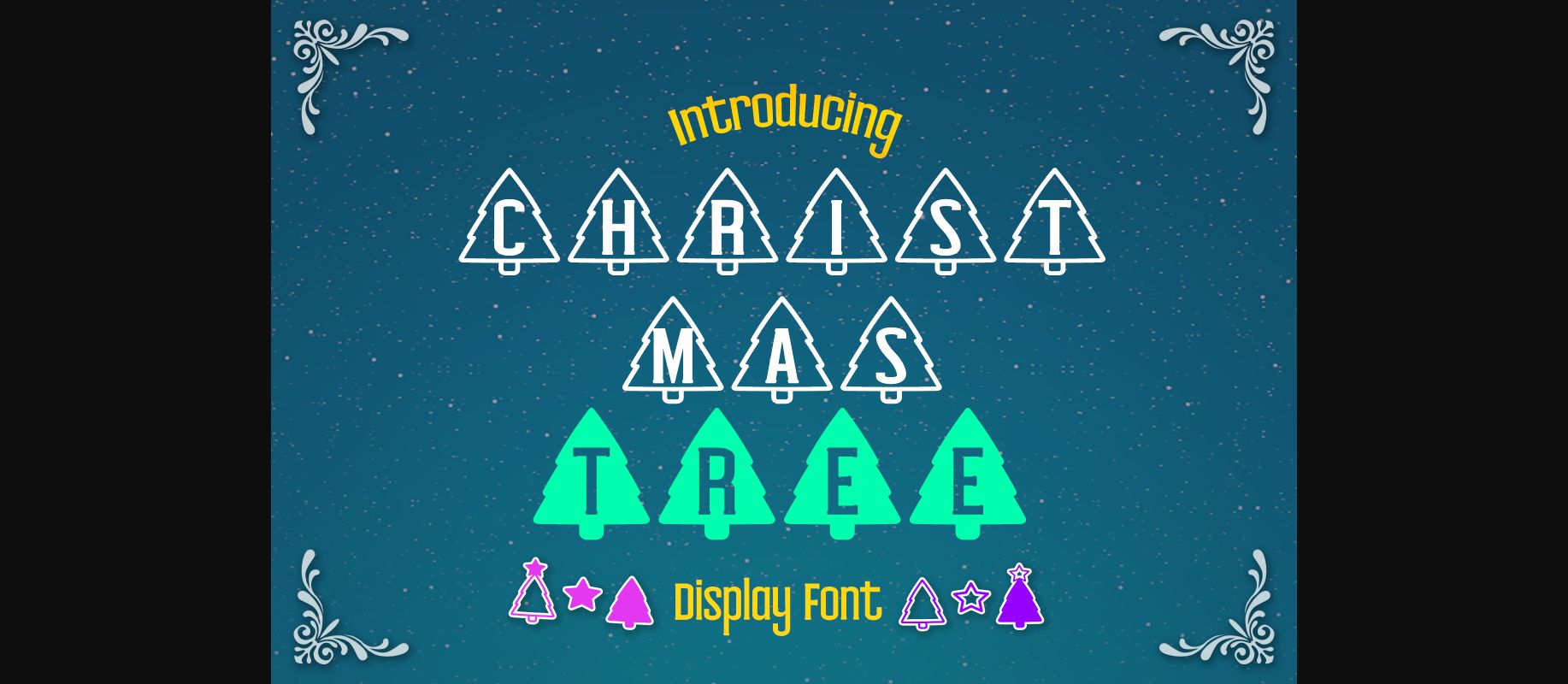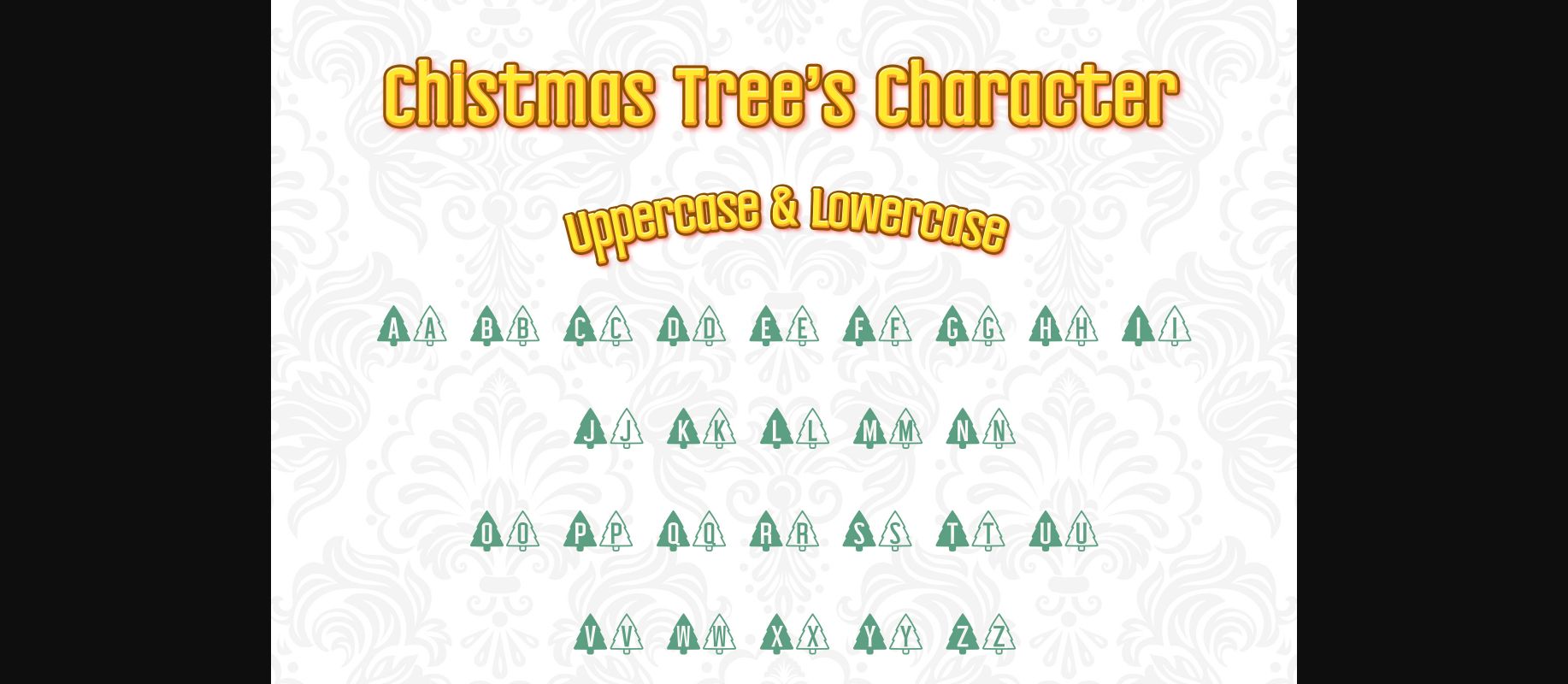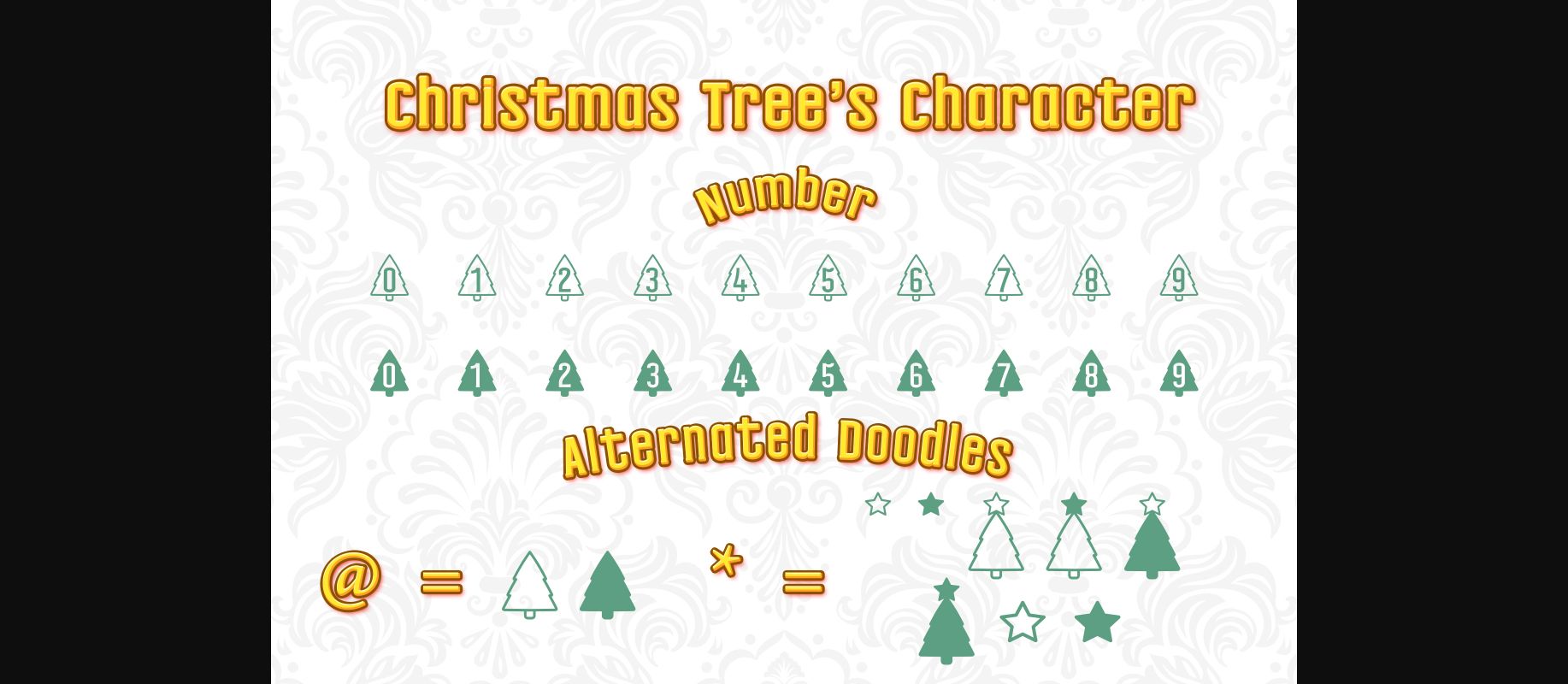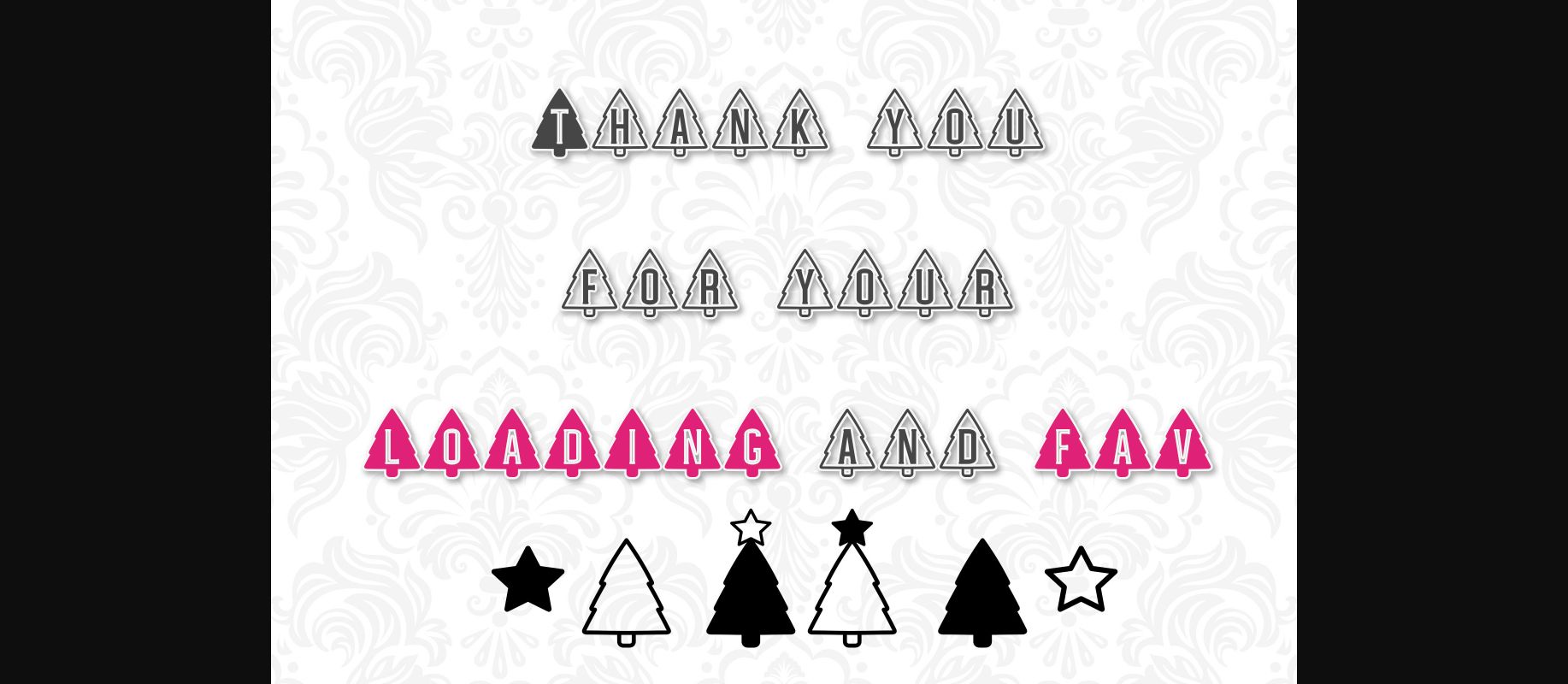
Christmas Tree Font
About Christmas Tree Font
Christmas Tree is a thin and tall lettered decorative font. Fall in love with its incredibly versatile style and use it to create spectacular Christmas Designs!